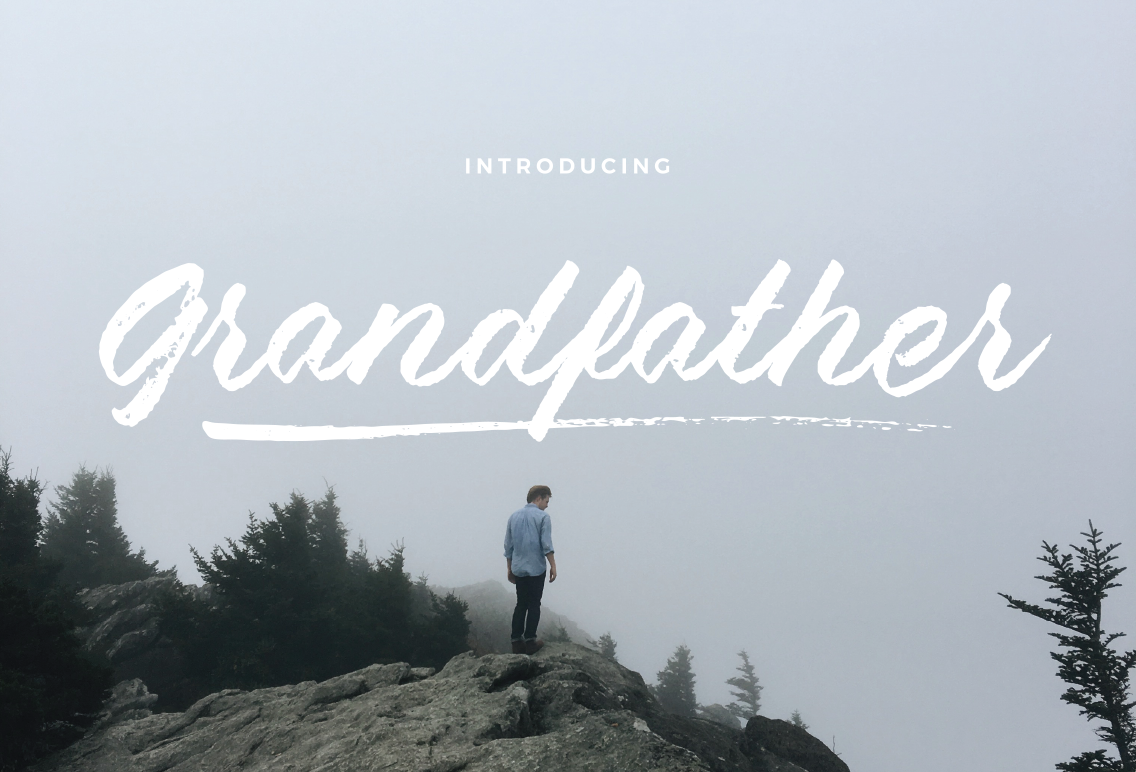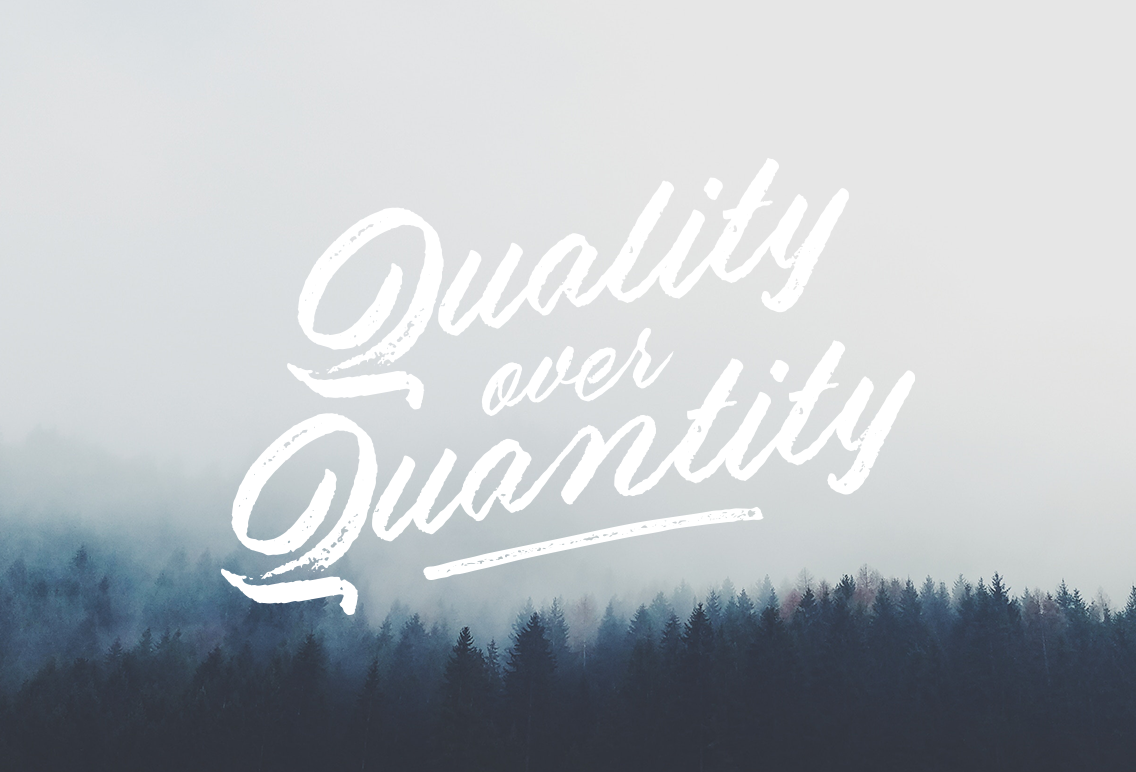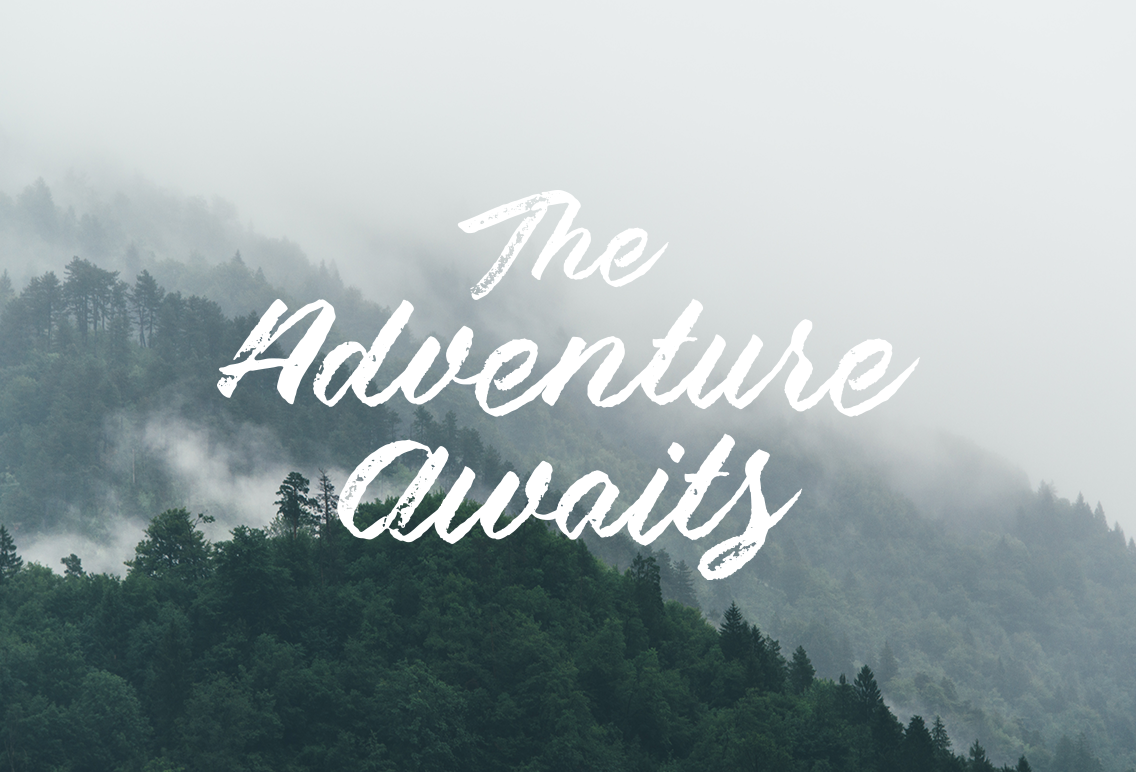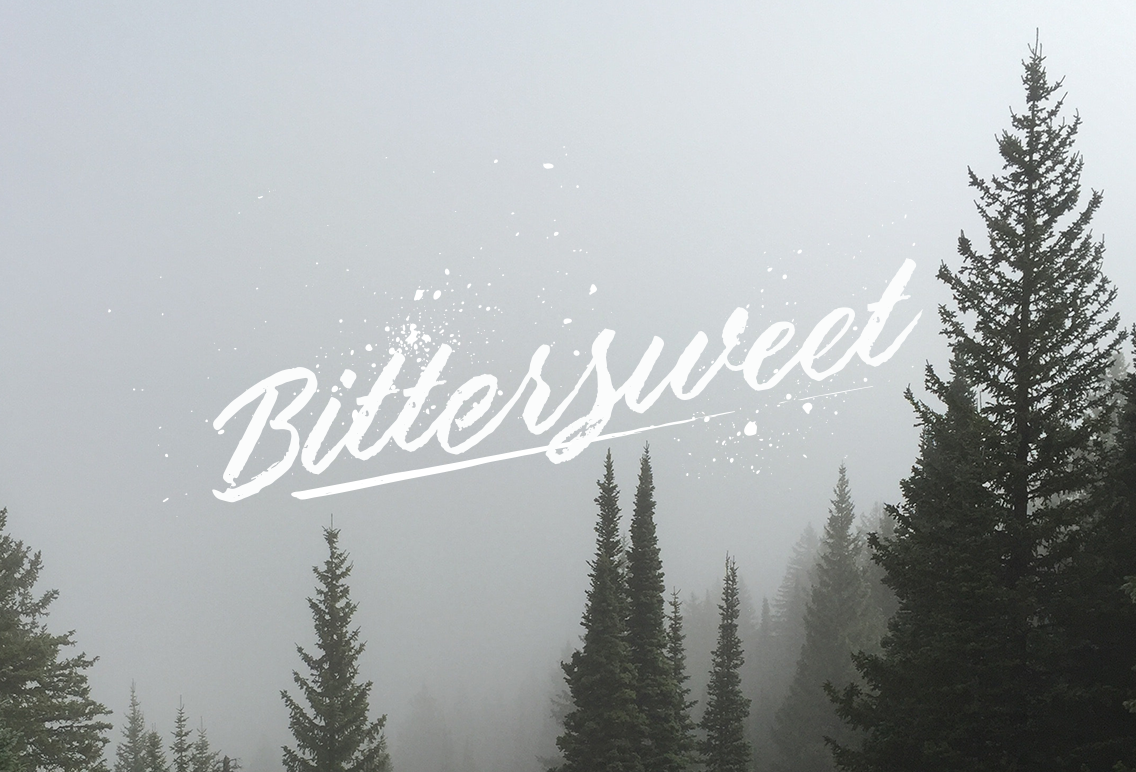
Grandfather Font
About Grandfather Font
Grandfather is a handwritten brush script font. It takes inspiration from Grandfather Mountain in North Carolina. (It’s also named after it!) Featuring a somewhat bouncy baseline and flowy connections, it gives your designs a truly handcrafted feel. Perfect for use in a large range of display projects.